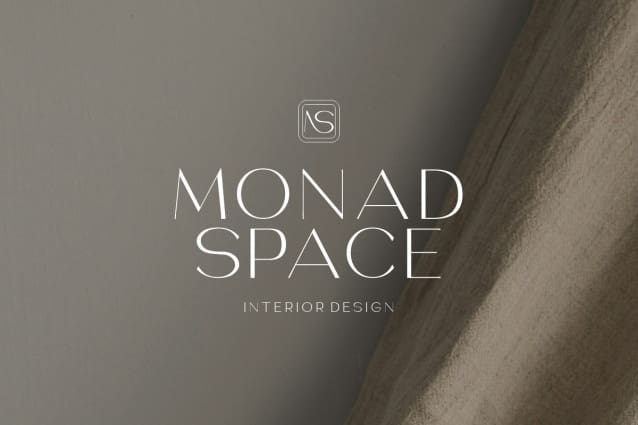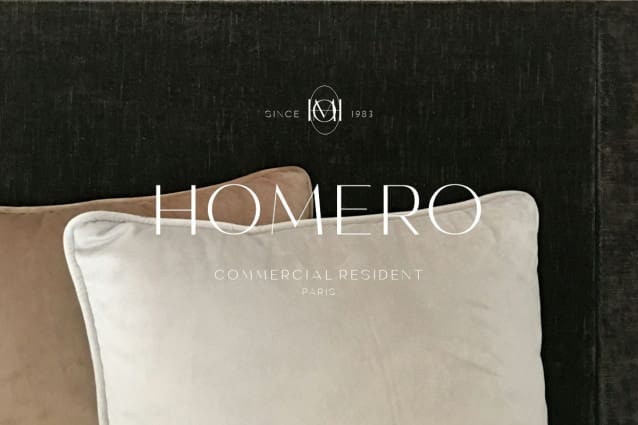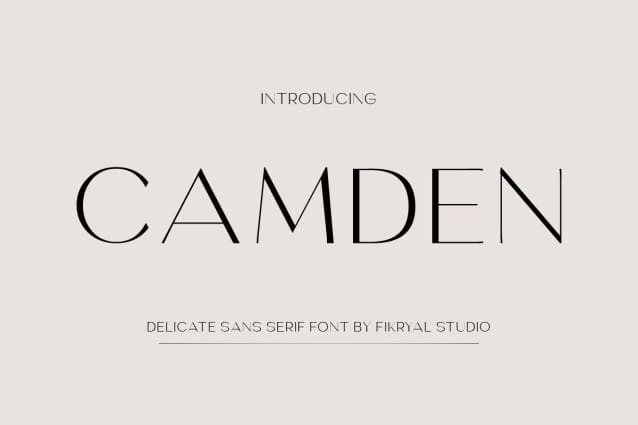
Camden Font
Camden Font – a delicate sans serif font exuding elegance with its refined, all-caps design. Crafted for sophistication, its sleek letterforms bring a touch of class to any project. Camden’s minimalist aesthetic is complemented by its extensive multilingual support, ensuring versatility across various languages and typographic needs. Whether used for branding, editorial design, or digital media, Camden elevates your typography with its timeless charm and international appeal.